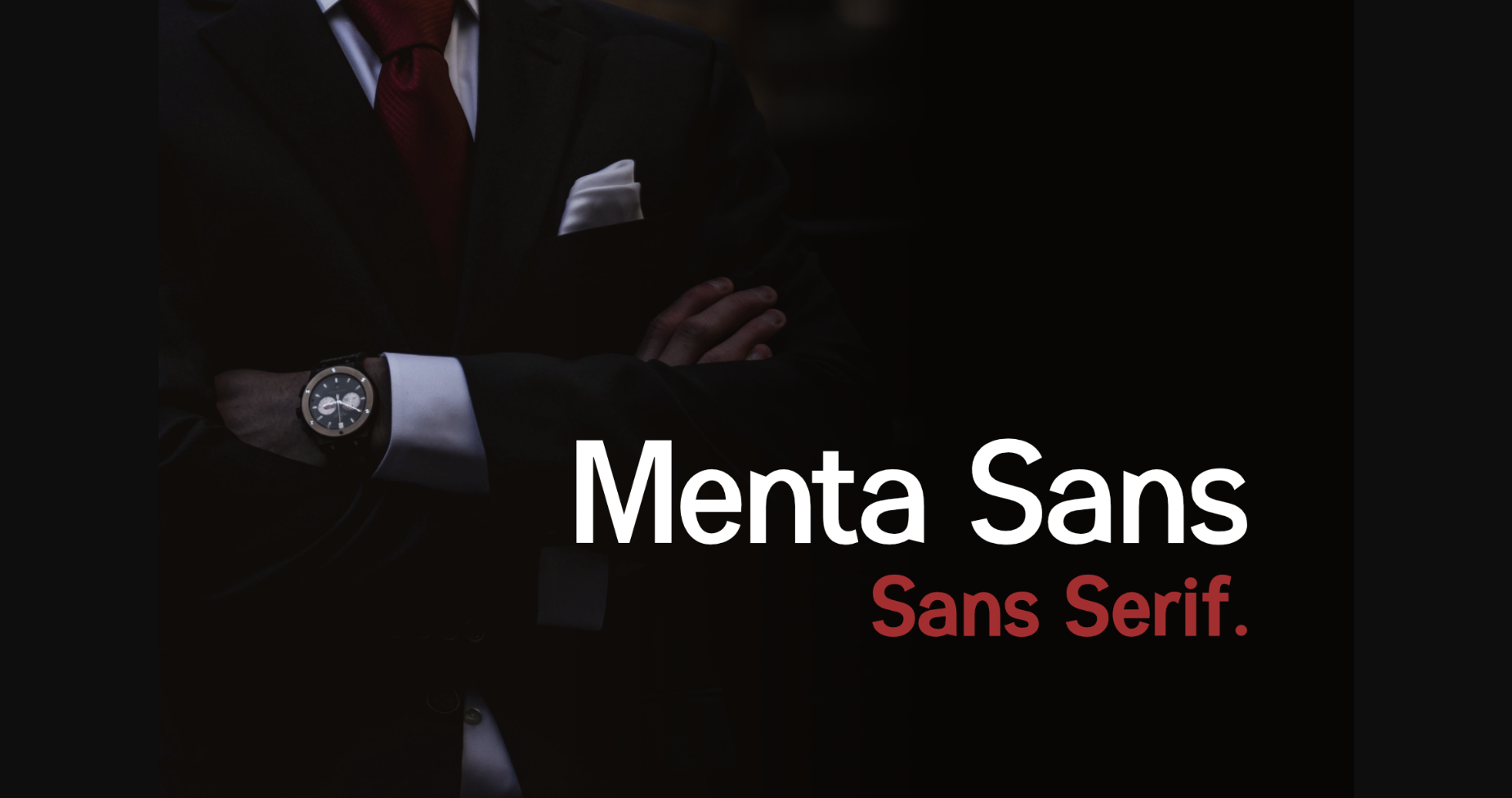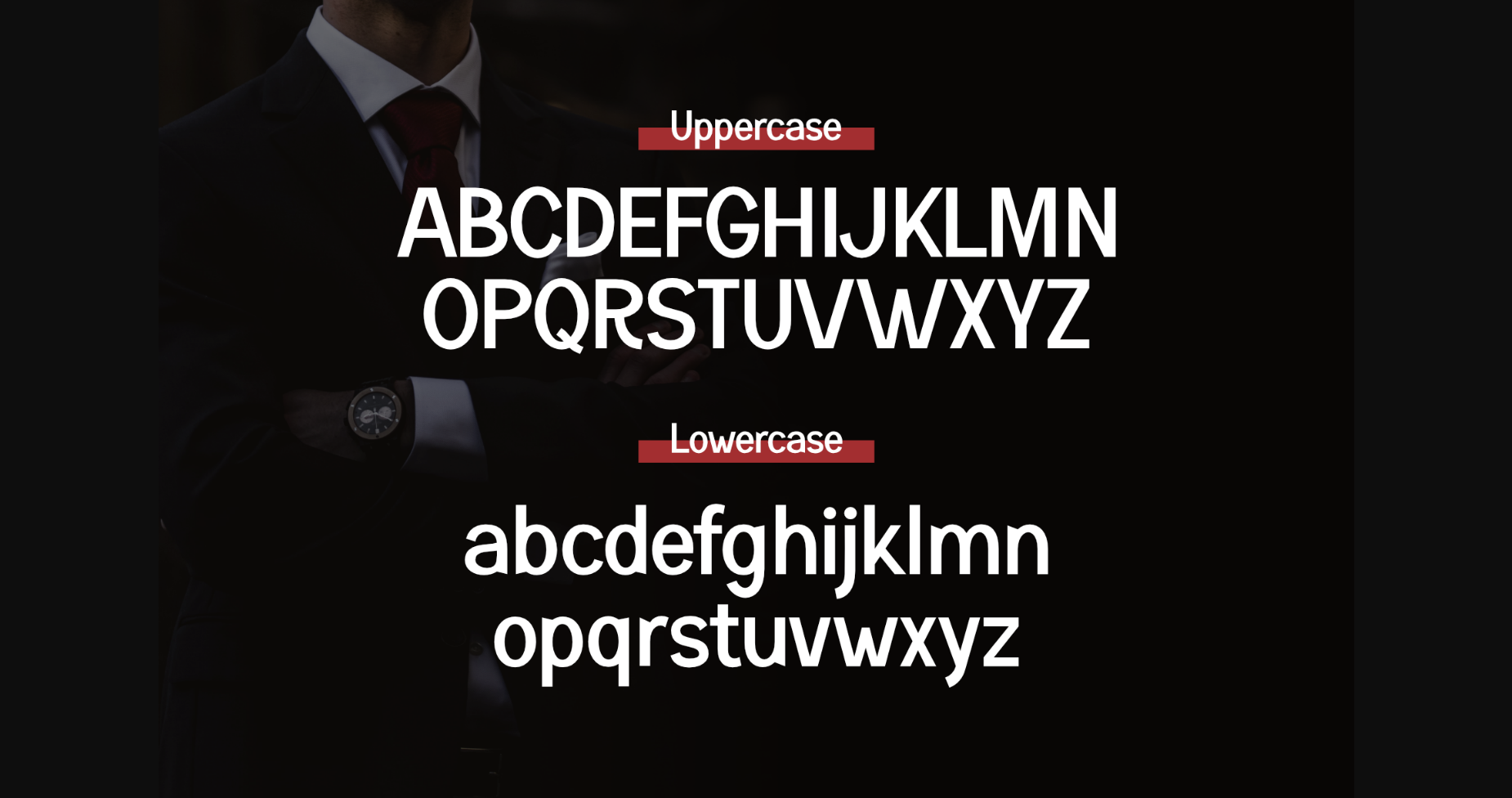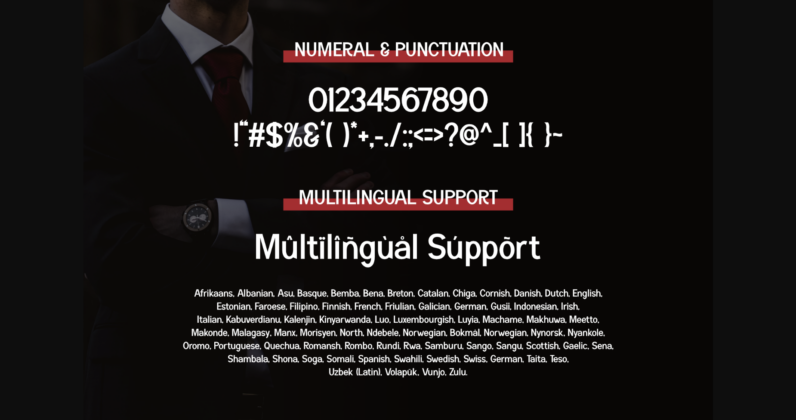
About Menta Font
Menta is a cool and clean sans serif font. It will elevate a wide range of crafting ideas, from cards, to branding, labels and much more.